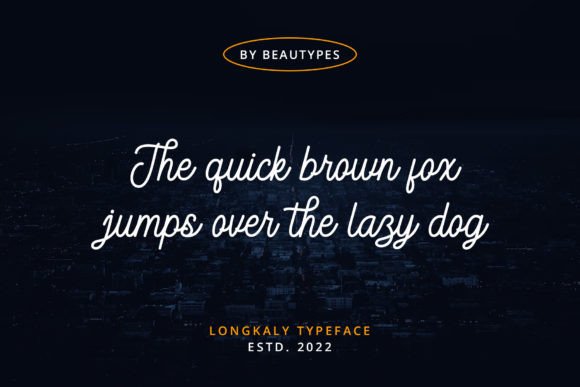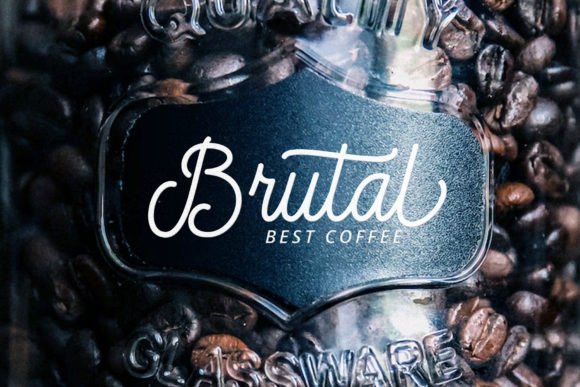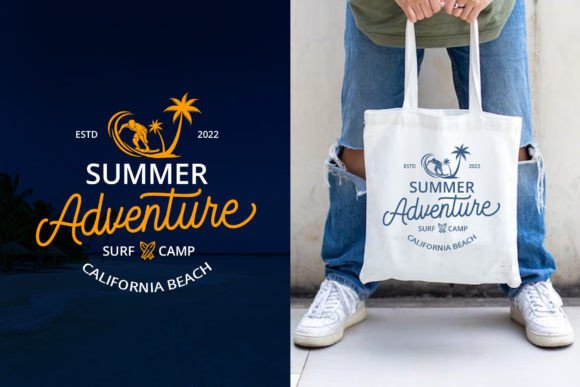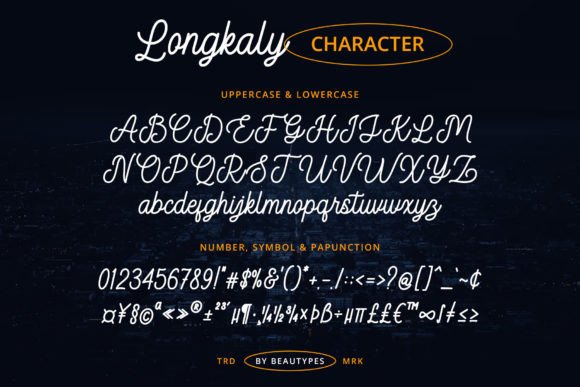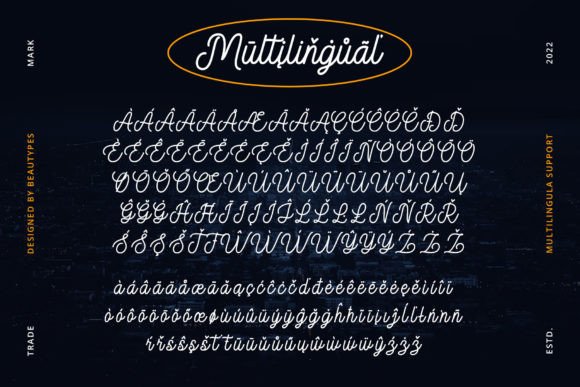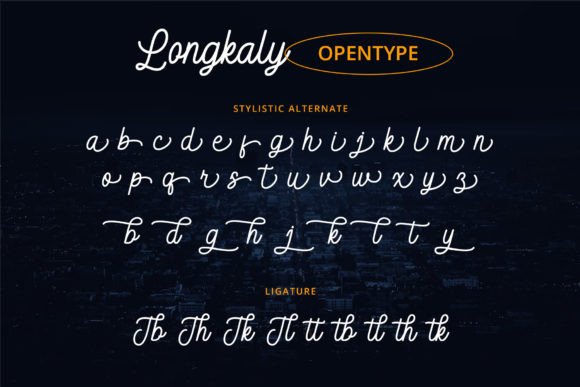
Introduction to Longkaly Font
Longkaly is a monoline font with vintage looks.
It is perfect to create beautiful vintage typography on any project like t-shirts, merchandise, logos, labels, posters, magazines, packaging, quotations, and more This font is PUA encoded, which means you can access all of the glyphs and swashes with ease.